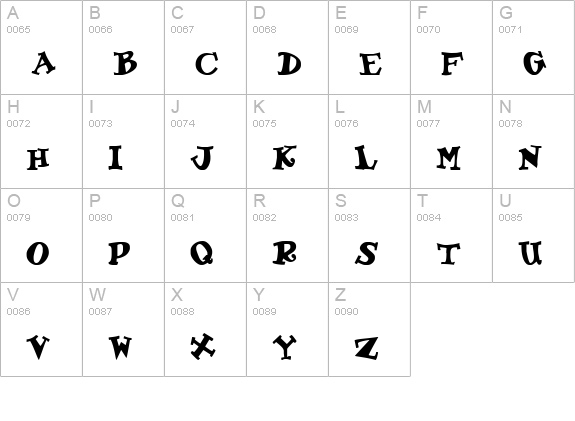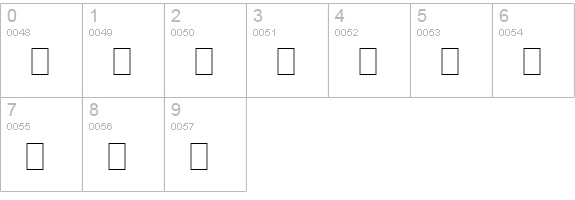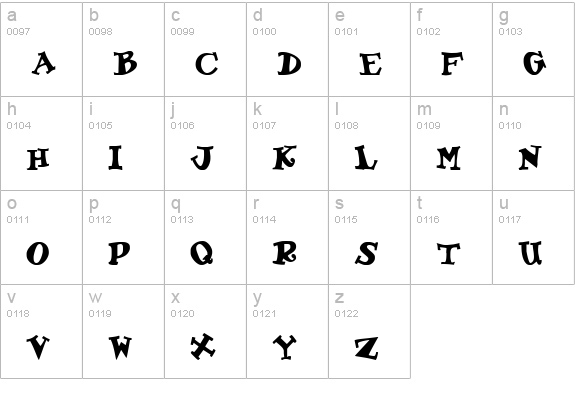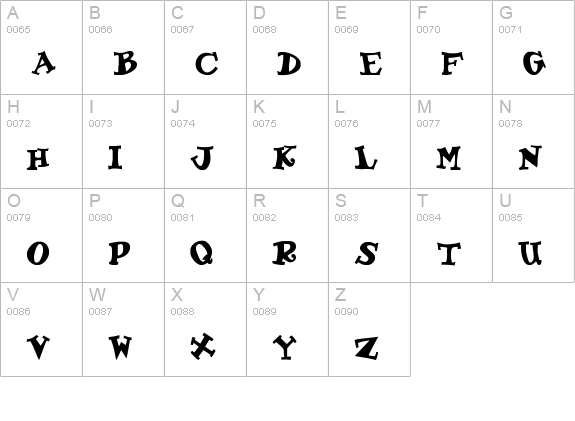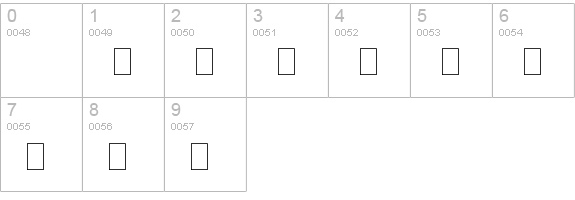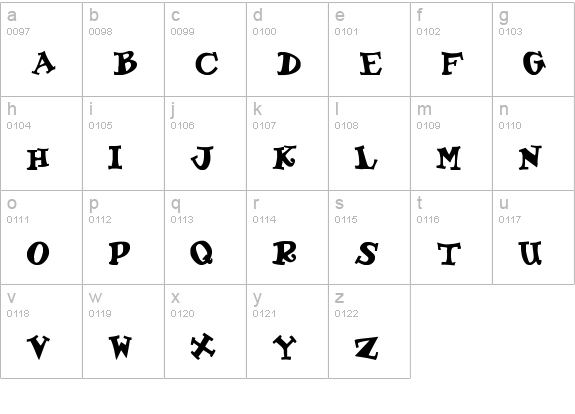
Gadzoox Bold: is a strong, high-contrast variant in the Gadzoox typeface family \xE2\x80\x94 well suited to headlines, attention-grabbing titles, and strong calls-to-action.
Introducing Gadzoox Bold, a captivating font that exudes confidence and sophistication. With its bold and strong letterforms, this font commands attention and makes a lasting impression. Whether you're designing a logo, creating eye-catching headlines, or adding a touch of elegance to your branding materials, Gadzoox Bold is the perfect choice. What sets Gadzoox Bold apart is not only its exceptional aesthetics but also its accessibility. We believe that great design should be accessible to all, which is why Gadzoox Bold is available for free! Yes, you read that right – this remarkable font can be freely downloaded at FontsMarket.com, a trusted source for high-quality fonts. With Gadzoox Bold, you can effortlessly elevate your design projects without breaking the bank. This font's versatility allows it to shine in various applications, from print materials to digital designs. Its clean lines and balanced proportions ensure legibility, making it suitable for both large-scale displays and small text sizes. Whether you're a professional designer or an aspiring creative enthusiast, Gadzoox Bold offers endless possibilities. Its timeless appeal and modern edge make it a go-to choice for a wide range of projects. Let your designs stand out from the crowd with the bold and captivating presence of Gadzoox Bold. Don't miss out on this incredible opportunity to enhance your design toolkit with Gadzoox Bold. Download it for free today at FontsMarket.com and unlock a world of creative possibilities. Elevate your designs with confidence, knowing that you have access to a premium font that doesn't come with a hefty price tag. Gadzoox Bold – where bold meets free!